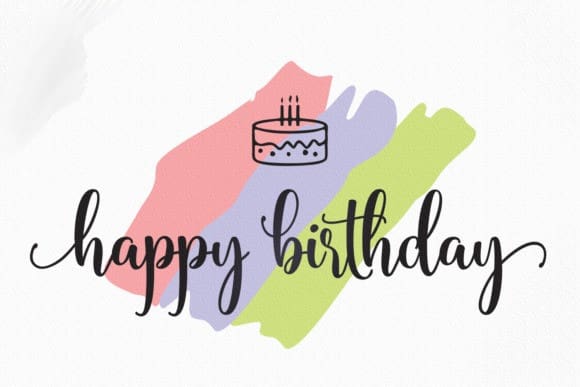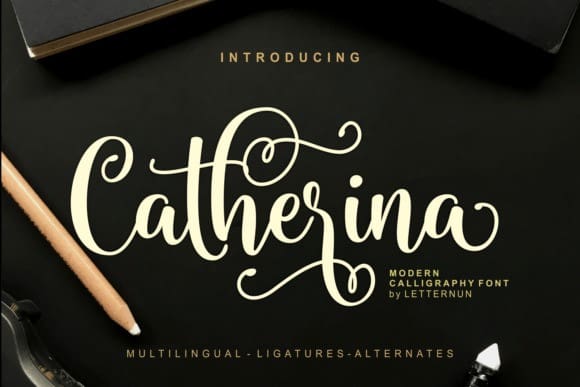
Catherina Font
Catherina Font is a soft and sweet calligraphy script font. It is perfect for your upcoming projects such as modern invitation design, branding, stationery design, blog design, modern advertising design, card invitation, art quote, home decor, book/cover title, special events ( wedding, birthday ), and any handpainted calligraphy needs.